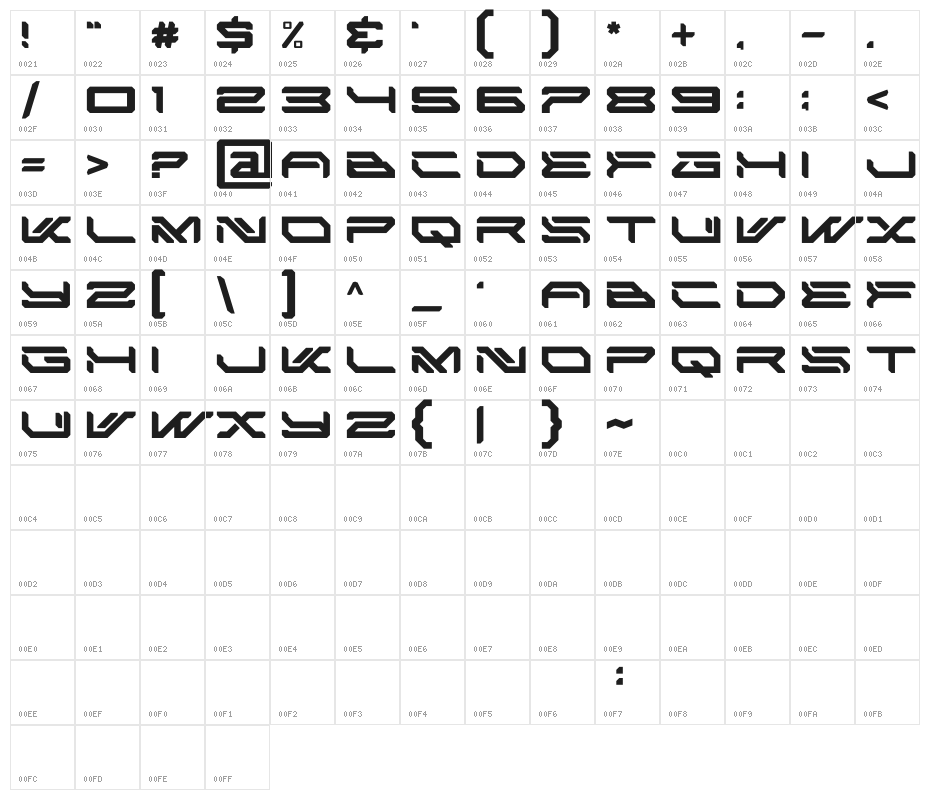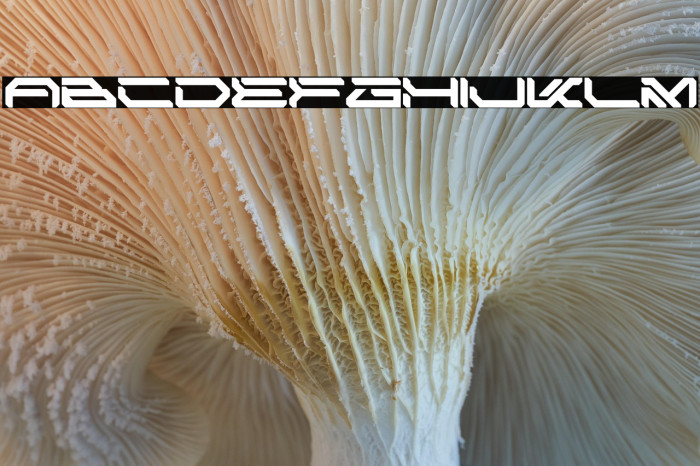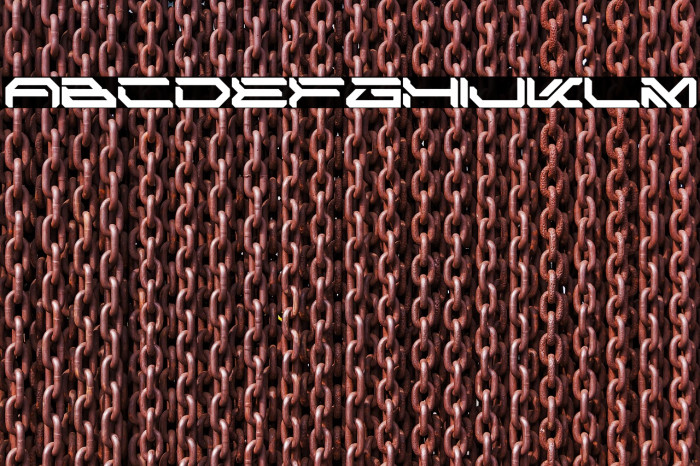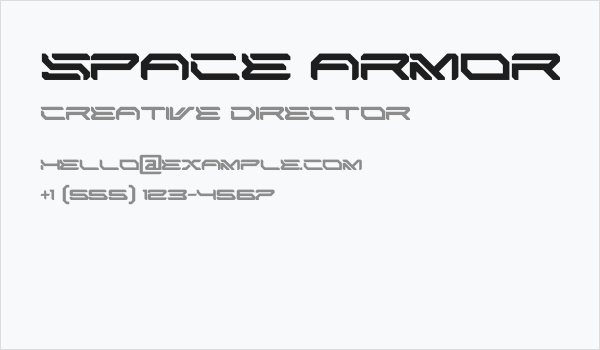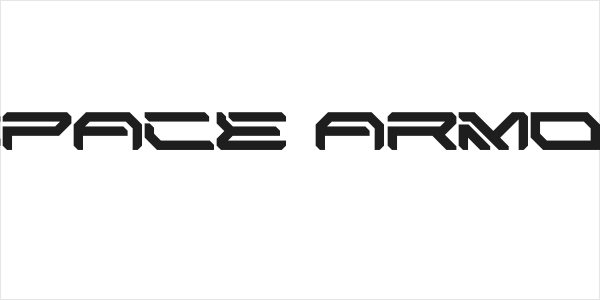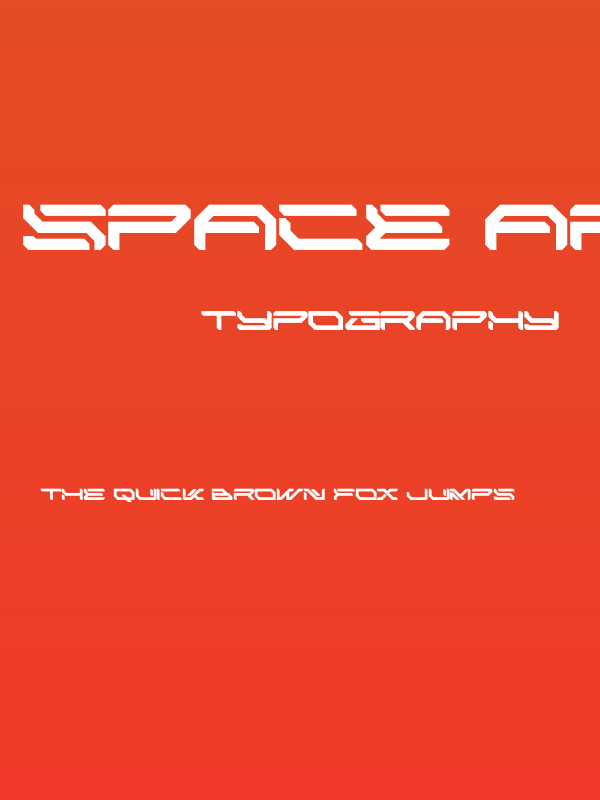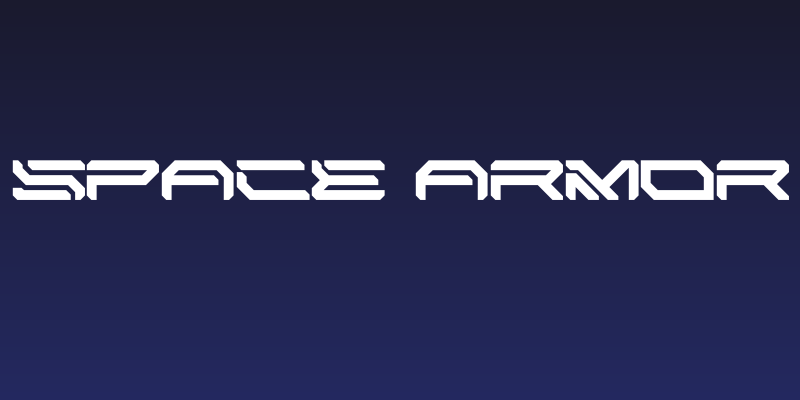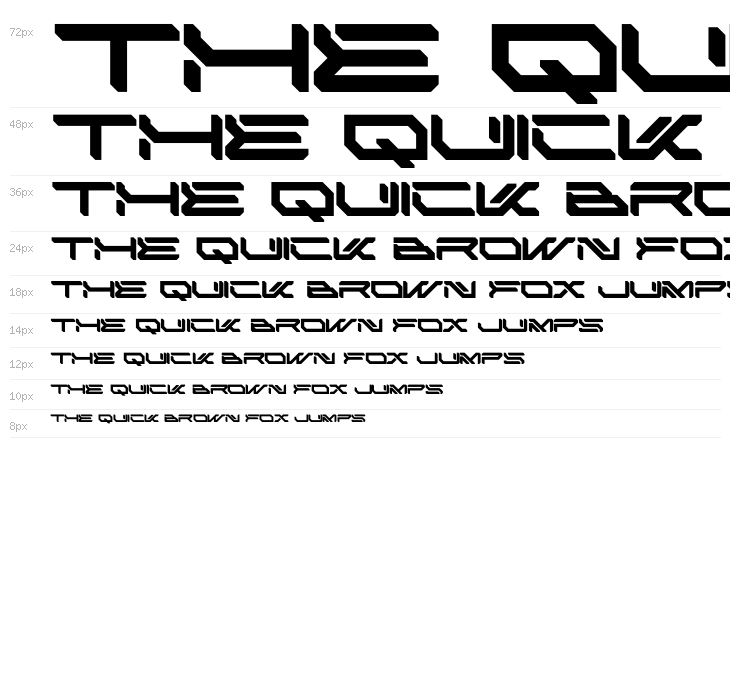
SPACE ARMOR Font
A futuristic, angular font with a bold, geometric style, featuring sharp edges and a tech-inspired design.
| Proposed Projects | Video game titles, sci-fi posters, tech branding. |